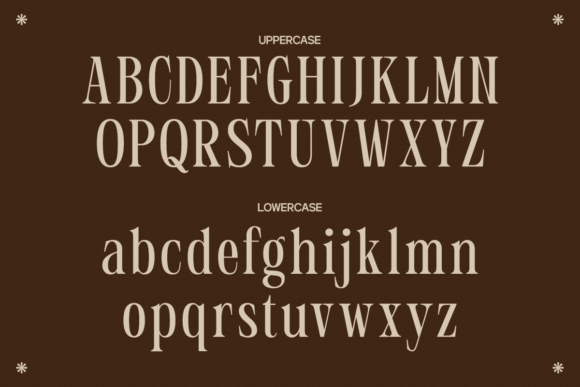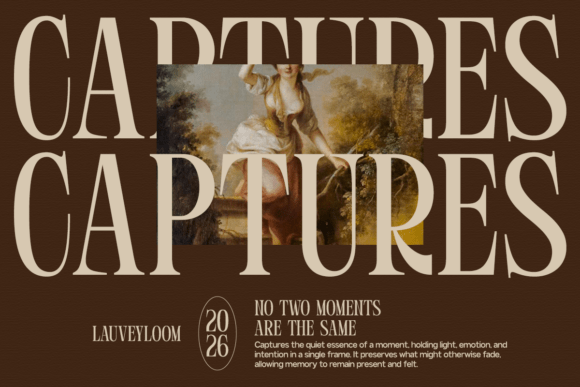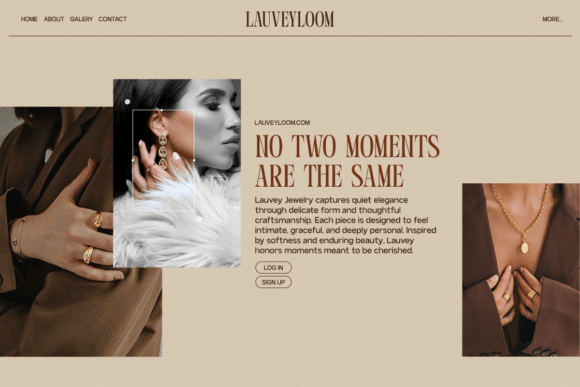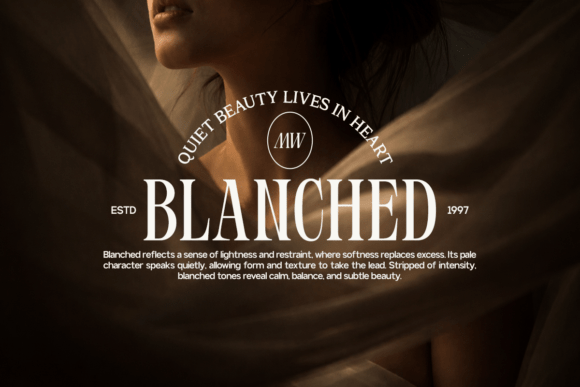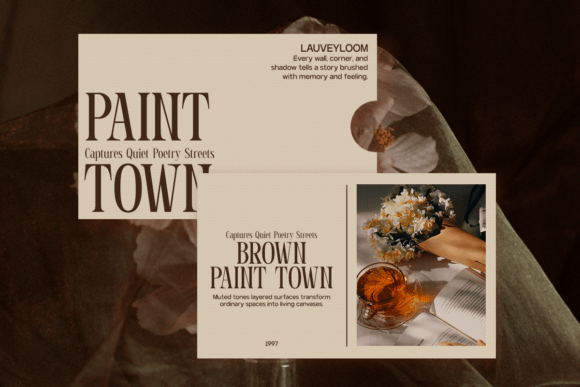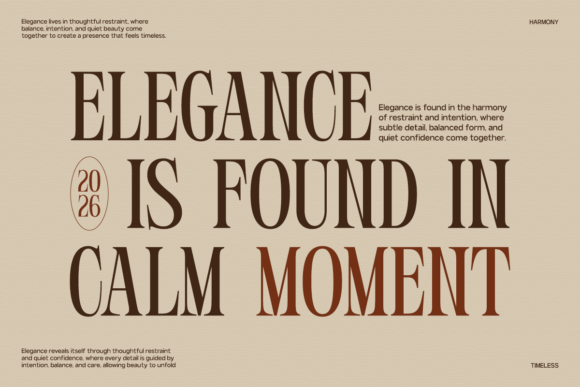
Introduction to Polaire Font
Have you ever been working on a creative project, pouring your heart and soul into every detail, only to feel like something is missing? That’s when you stumble upon the perfect design resource – a font that elevates your entire composition and leaves a lasting impression. For designers, finding that elusive ‘wow’ factor can be a game-changer. And that’s exactly what the Polaire Font offers.
This contemporary serif display typeface is more than just a stylish addition to your design arsenal – it’s a powerful tool that demands attention and conveys high quality. With its precise structure and confident vertical rhythm, the Polaire Font is designed to make a statement in headlines, branding, and high-impact compositions.
Key Features of Polaire Font
- High-quality design resource suitable for creative projects, including graphic design, digital art, and typography.
- Unique, elegant design with a transparent background, allowing for seamless integration with backgrounds and images.
- Compatible with high-resolution displays and print materials, ensuring crisp and clear typography.
- Designed for versatility, making it suitable for a wide range of creative projects, from logos and branding to digital art and graphics.
- Includes a comprehensive character set, including uppercase and lowercase letters, numbers, and punctuation marks, for effective communication.
Honest Review: Polaire Font
I recently stumbled upon the Polaire Font, a free download that’s been making waves in the design community. As a designer, I’m always on the lookout for high-quality resources that can elevate my creative projects.
- ✨ Elegant and modern design aesthetic that’s perfect for minimalist designs
- ✨ Highly legible and clear, even at small font sizes
- ⚠️ Limited character set and language support, which may not be ideal for projects requiring extensive text
Overall, I’m impressed with the Polaire Font’s potential as a design resource. While it has its limitations, it’s a great choice for personal projects or those requiring a minimalist aesthetic. If you’re looking for a high-quality font for your creative project, the Polaire Font is definitely worth considering.
Tips for Getting the Most Out of Polaire Font
Use the Polaire Font on a transparent background to create a high-quality design that stands out. You can also experiment with different font sizes and styles to add depth and visual interest to your project.
The Polaire Font is a versatile design resource that can be used in a variety of creative projects, including graphic design, digital art, and typography. It’s also a great resource for creating social media graphics, presentations, and documents.